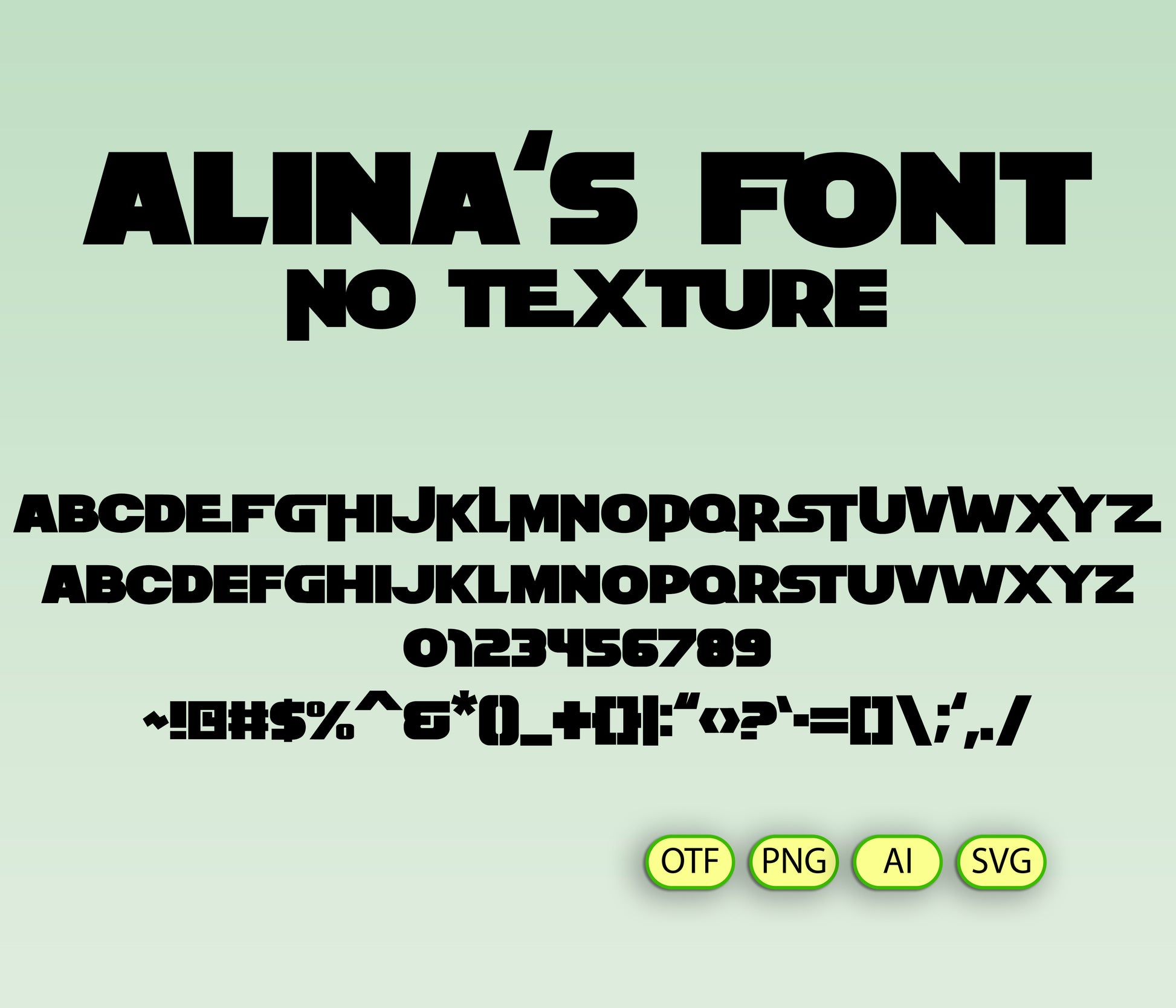
Simian Empire Font
Step into the primal world of evolved primates with our specially designed font, capturing the essence of a civilization where apes rule supreme. Perfect for fans, event organizers, and designers, this font brings the dramatic, post-apocalyptic spirit of this legendary saga to your projects. Create event invitations, themed merchandise, or digital content with the intense energy of this epic tale of survival and dominance.
Our Simian Empire font features bold, primitive yet sophisticated characters reflecting the evolved nature of these remarkable beings. Ideal for:
Our Simian Empire font includes textured and non-textured variants, ensuring compatibility with all software, including Canva. This feature allows easy incorporation into designs for users of all skill levels.
Our font pays tribute to the legendary tale of primate ascension, empowering your designs with its primitive yet sophisticated spirit. Whether crafting promotional materials, designing merchandise, or adding a dramatic touch to personal projects, this font communicates the powerful essence of this epic saga. Ready to inject some primal power into your creations? This font is your key to bold, impactful design.